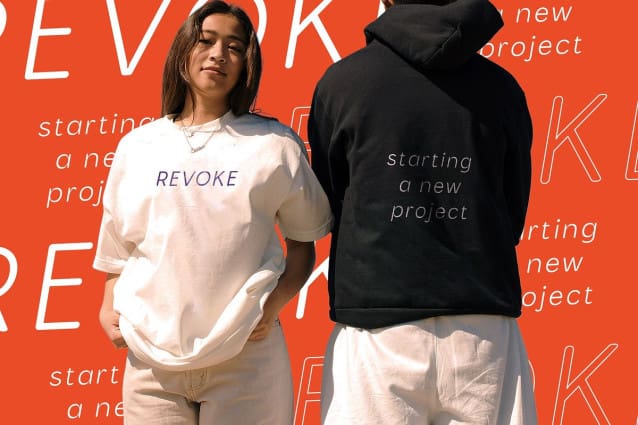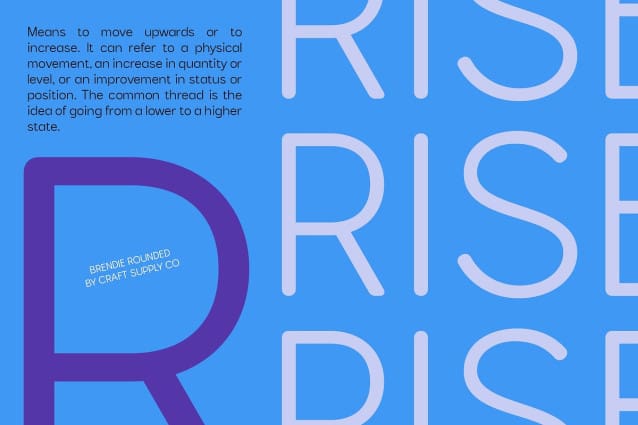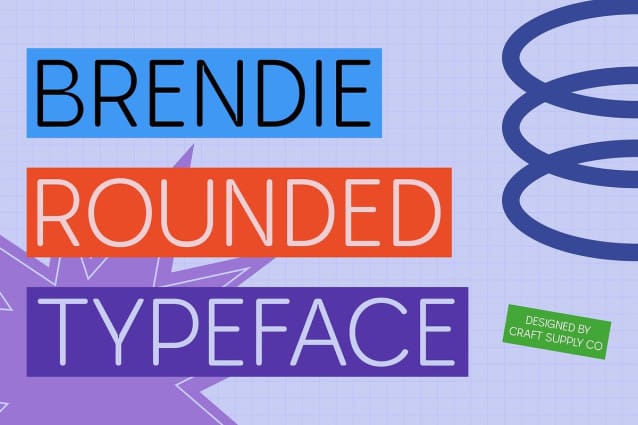
Brendie Rounded Font
Brendie Rounded Font is a modern sans-serif font that features soft, rounded shapes, blending clean, serif-free letters with gentle, rounded edges. This unique design creates a warm and approachable impression while maintaining a sleek and minimalist appearance. The rounded form adds a touch of friendliness and accessibility to the font, making it suitable for various contemporary design needs.
Stylish and Readable Combining clarity with warmth, Brendie Rounded offers a stylish, modern look that enhances readability and visual appeal. Its clean lines and rounded features provide a contemporary aesthetic while ensuring that text remains clear and engaging. This balance makes it ideal for applications where a chic, professional appearance is desired.
Versatile for Branding and Marketing Whether used in branding, websites, or marketing materials, Brendie Rounded stands out with its elegant and approachable design. Its versatile style suits a range of contemporary projects, offering a sophisticated yet friendly look that makes a memorable impact. From sleek digital interfaces to eye-catching promotional materials, Brendie Rounded delivers a modern and professional edge to any design.